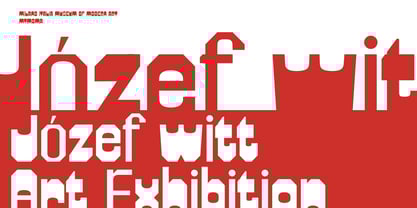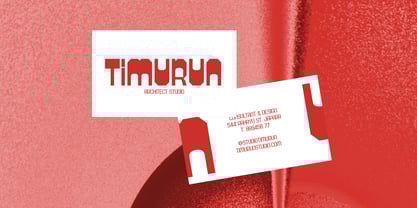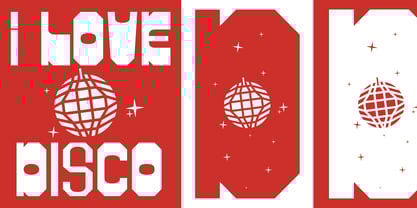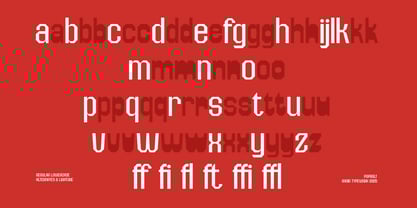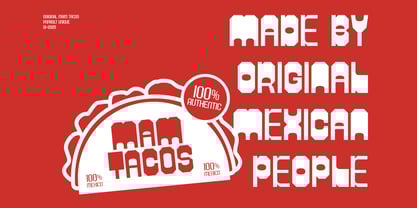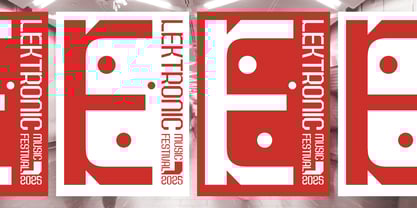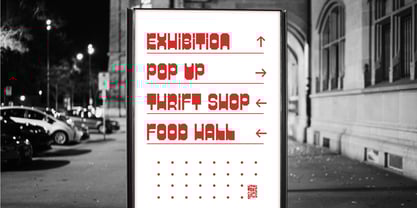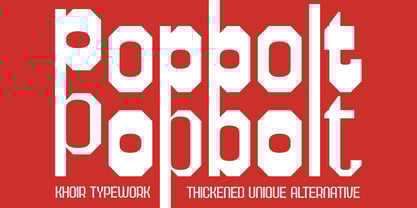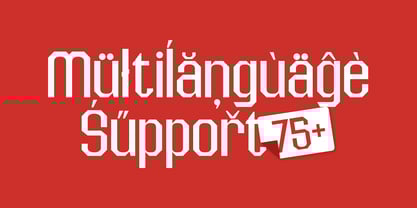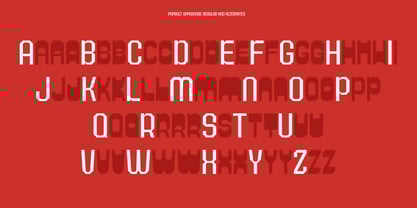
Popbolt
by Khoir
The Popbolt Font Family was designed by Muhammad Romzul Khoir and published by Khoir. Popbolt contains 1 styles. More about this family
This font inspired by the rigid bolt shape is combined with a light modern style to look neat when applied to a project, but there is a unique breakthrough so that it is not monotonous, namely by having alternative fonts that are tiered from thin to thick, so that the choice of variations is more and can be used for any design model such as being applied to posters, business cards, packaging, logos, branding, billboards and many more.
• Popbolt
• Uppercase
• Lowercase
• 75+ Language
• Alternate